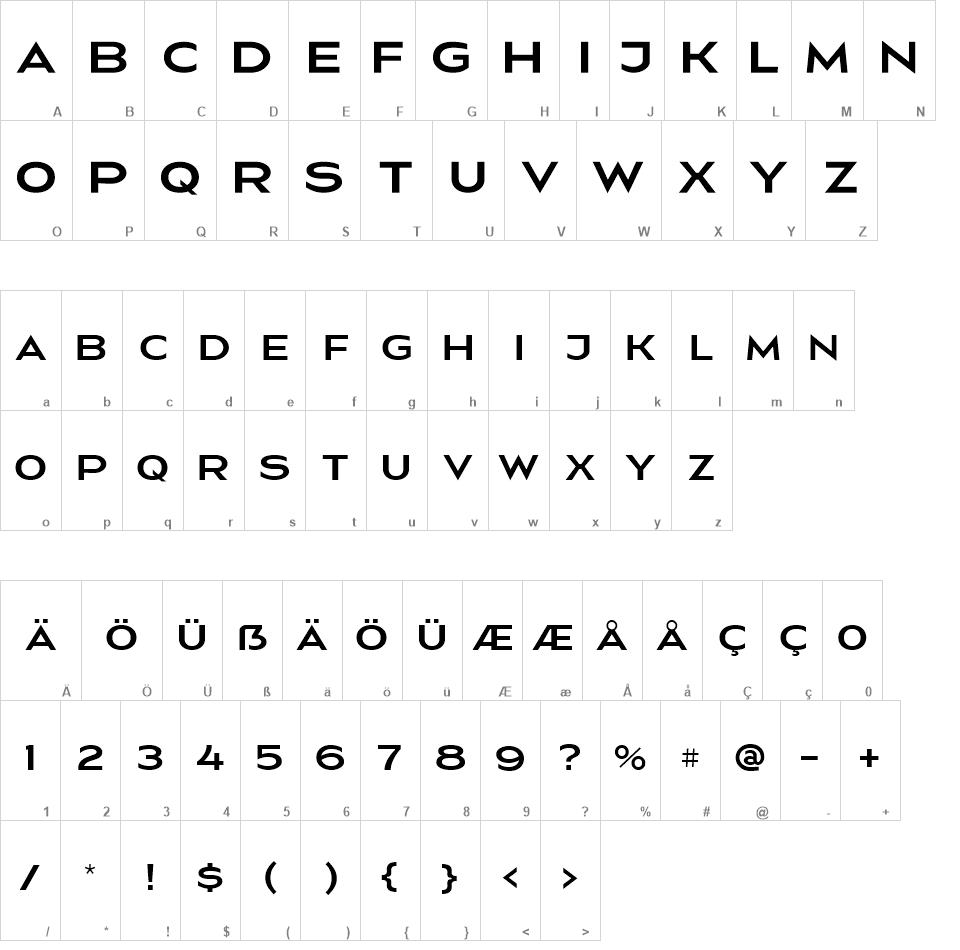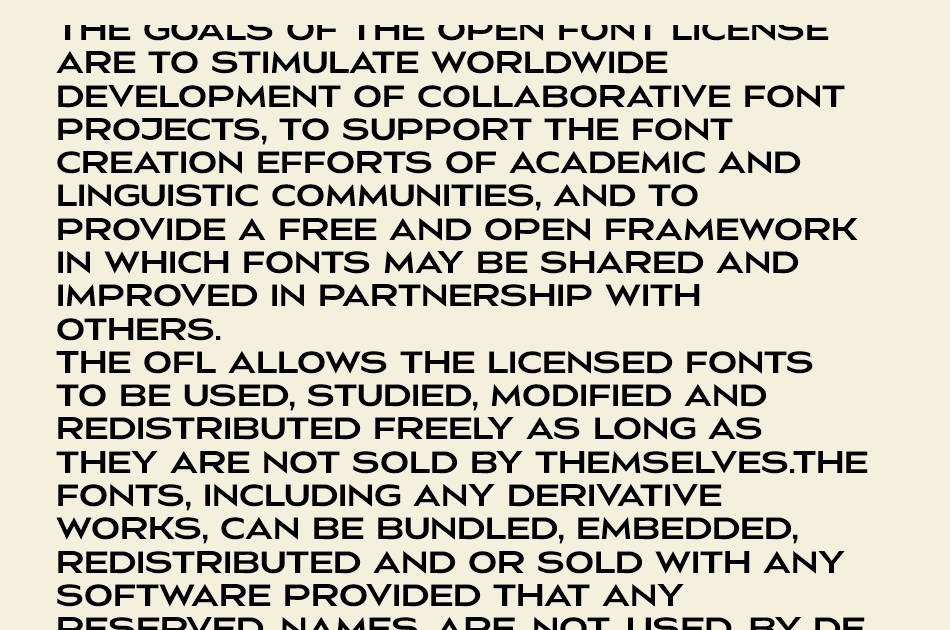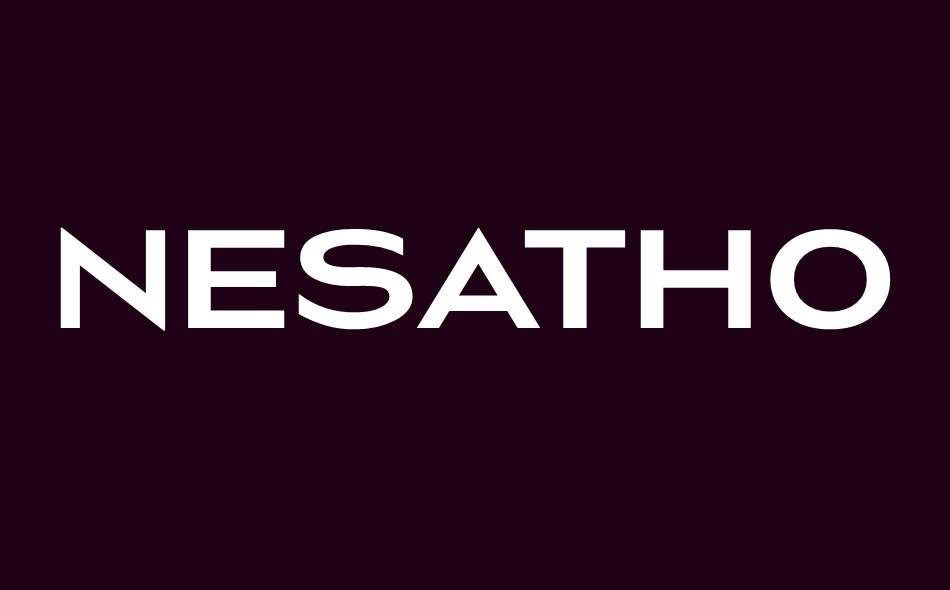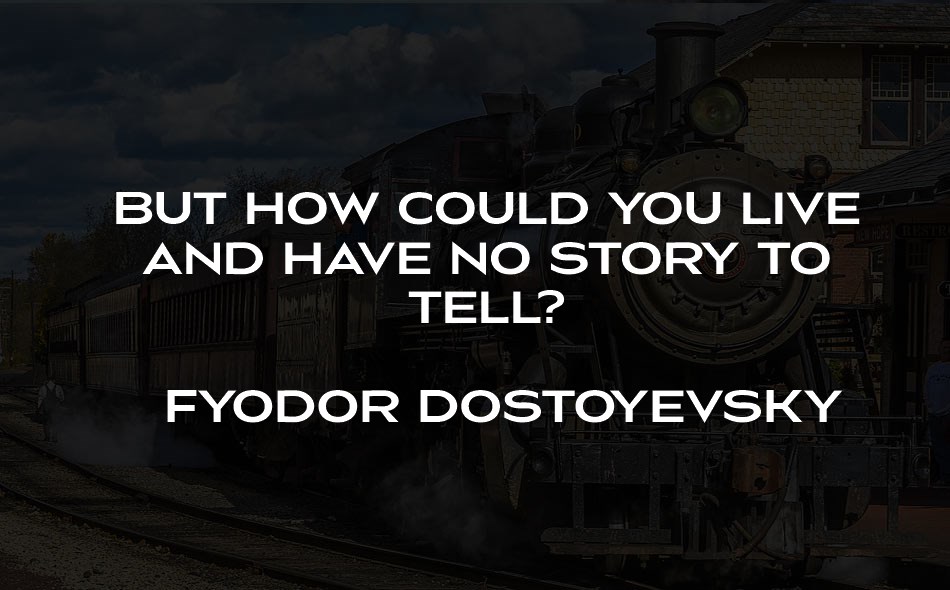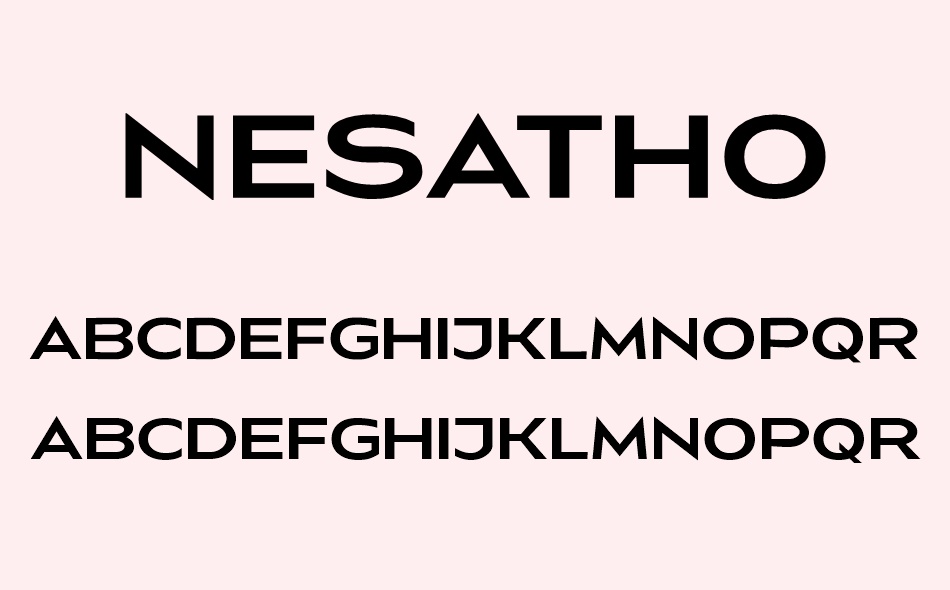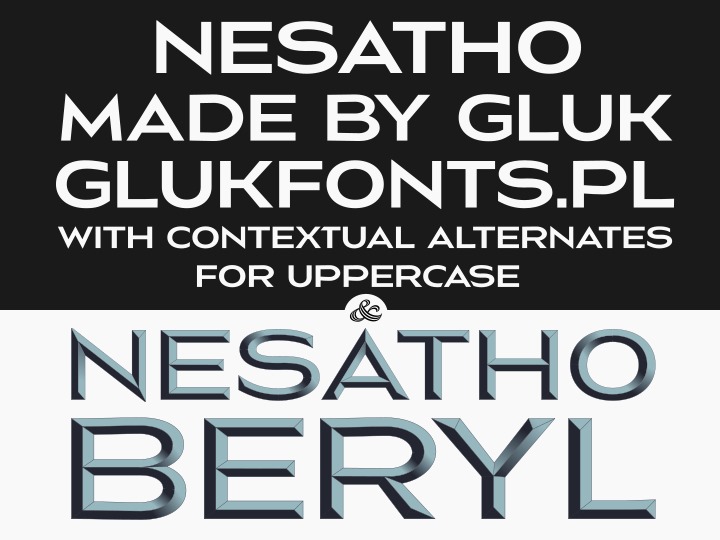
Nesatho font
Sans-serif font Nesatho with contextual alternates for Uppercase, free for commercial use. As Bonus - OpenTypeSVG color font Nesatho-Beryl.
Tip: use UpperCASe for contextual alternates!
Nesatho font
With contextual alternates for Uppercase.
Tip: use UpperCASe for contextual alternates!